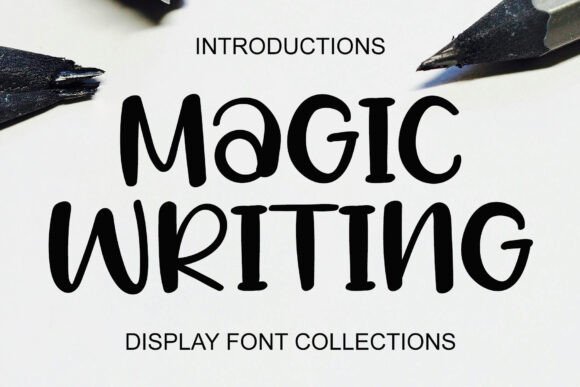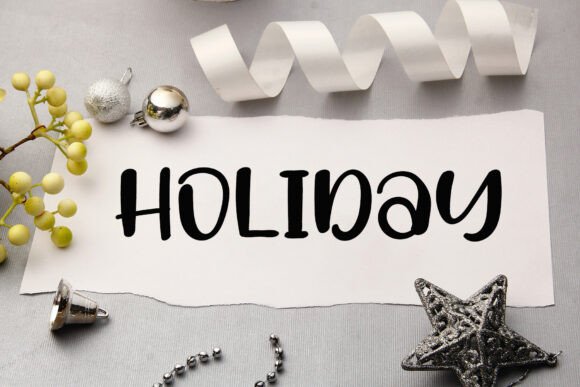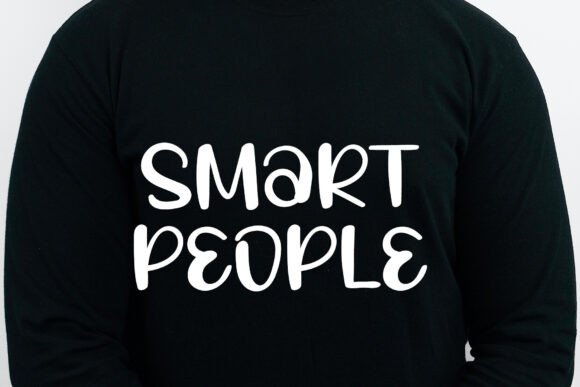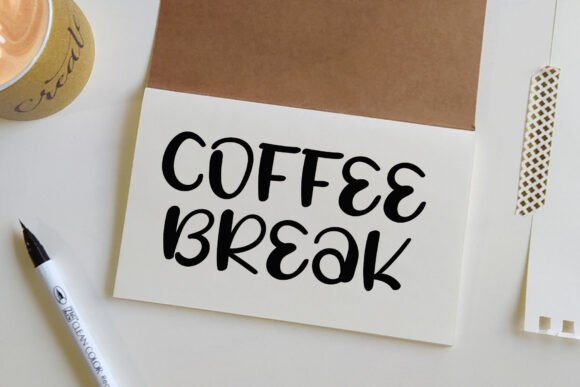
Magic Writing Font
About the Magic Writing Font
From logos to headlines, the Magic Writing Font is the perfect choice for making a lasting impression. Magic Writing is a bold and captivating display font that commands attention with its strong, distinctive letterforms. Designed to stand out, this powerful font blends creativity and impact, making it perfect for projects that need an eye-catching and memorable typographic style. Whether you’re working on branding, posters, or digital designs, Magic Writing adds a touch of bold magic to your visuals.
Magic Writing excels in headlines, short impactful statements, and logo designs. Its bold forms make it ideal for posters and branding projects requiring a strong visual presence, but it’s less suitable for body text or lengthy paragraphs due to its weighty design. Avoid using it in UI, as its high contrast and large x-height can hinder readability in smaller sizes.
Its inherent boldness pairs well with clean sans-serif fonts like Montserrat or Open Sans for a balanced contrast. For a more playful feel, consider pairing it with a rounded geometric sans-serif such as Circular Std. A classic serif like Garamond could add sophistication, grounding Magic Writing’s boldness.
Magic Writing projects a powerful, confident, and slightly rebellious personality, making it a good fit for brands focused on innovation, creativity, and a distinct identity.
Magic Writing Font Usage Examples
Magic Writing Font Example